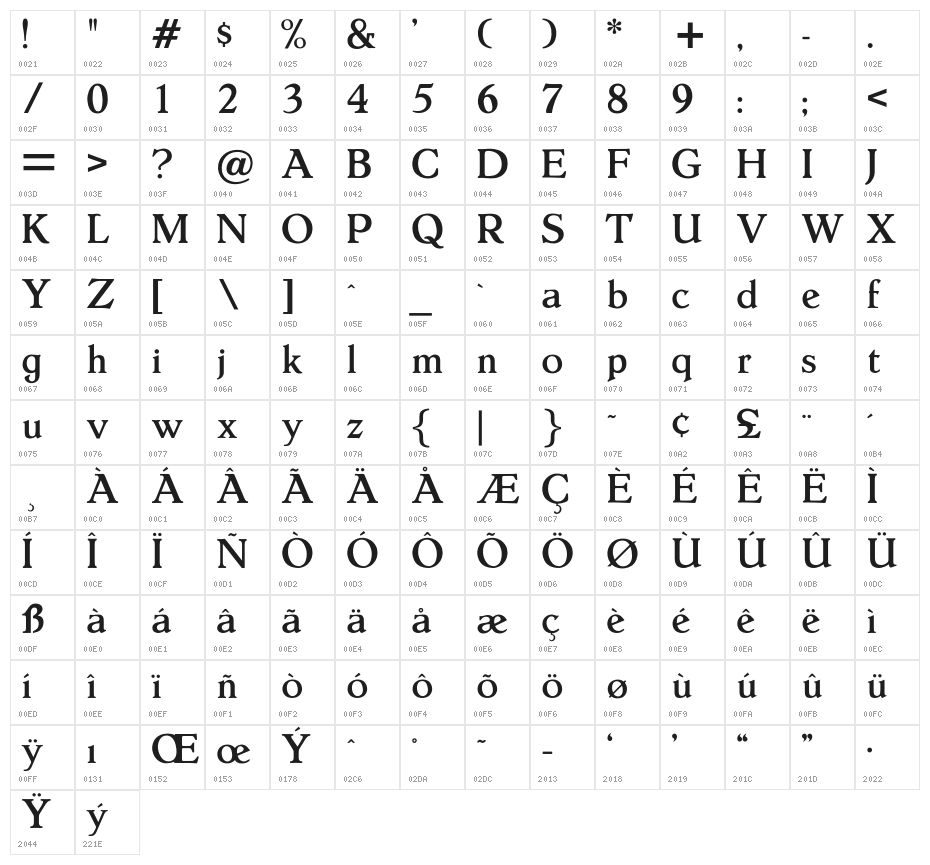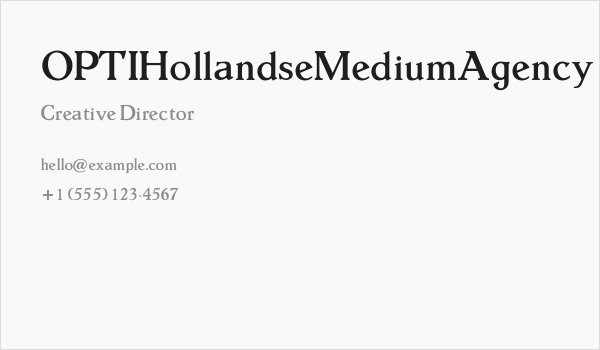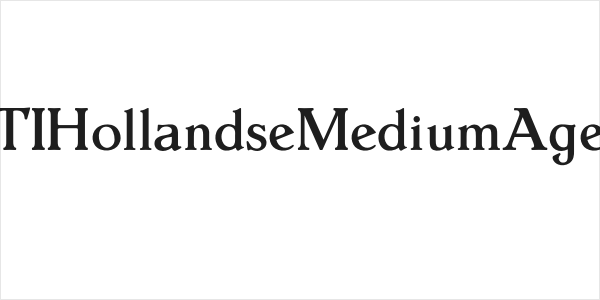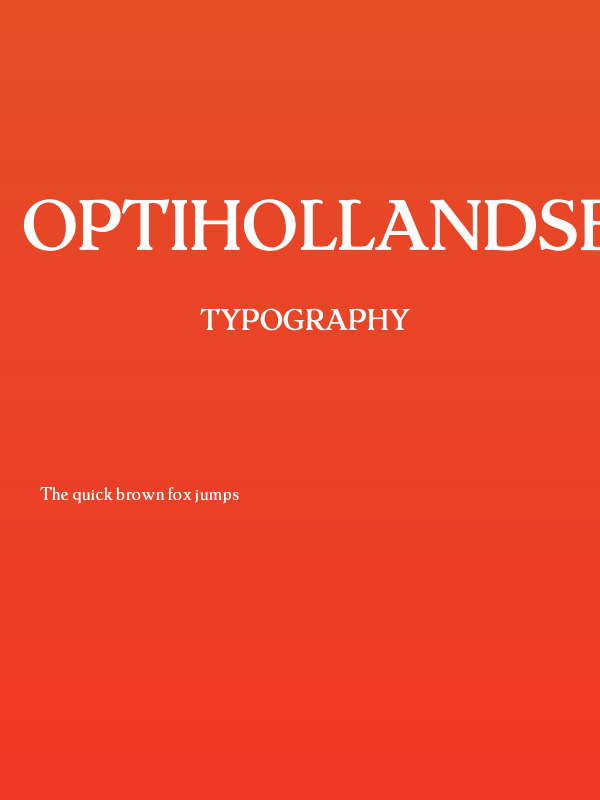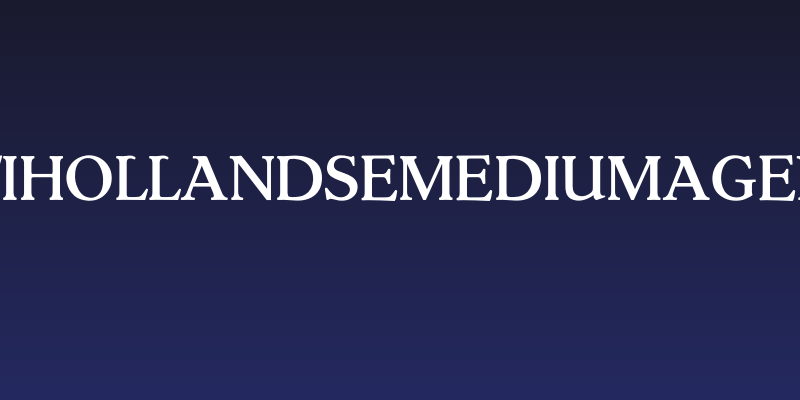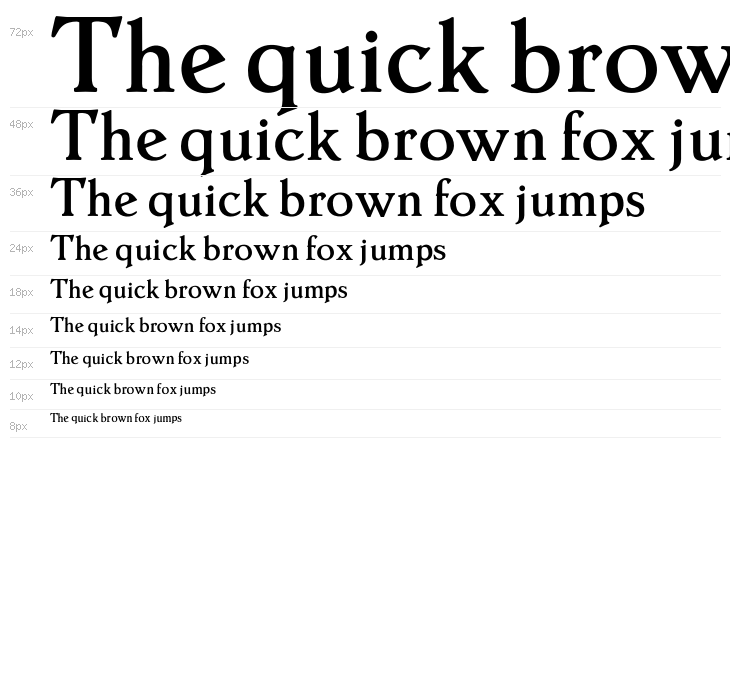
OPTIHollandseMediumAgency Font
OPTIHollandseMediumAgency Description
This font features a classic serif design with elegant and slightly curved strokes, providing a sophisticated and timeless appearance. The uppercase letters are bold and commanding, while the lowercase letters maintain a harmonious balance with subtle variations in stroke width. The numerals are clear and distinct, ensuring readability. Special characters are well-integrated, maintaining the overall aesthetic. This font's design is reminiscent of traditional typography, making it suitable for formal and professional applications.
| Proposed Projects | Perfect for book covers, formal invitations, certificates, and editorial design. |